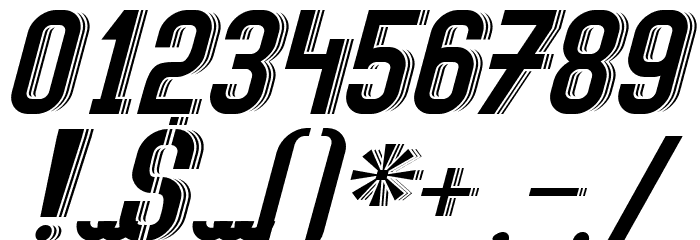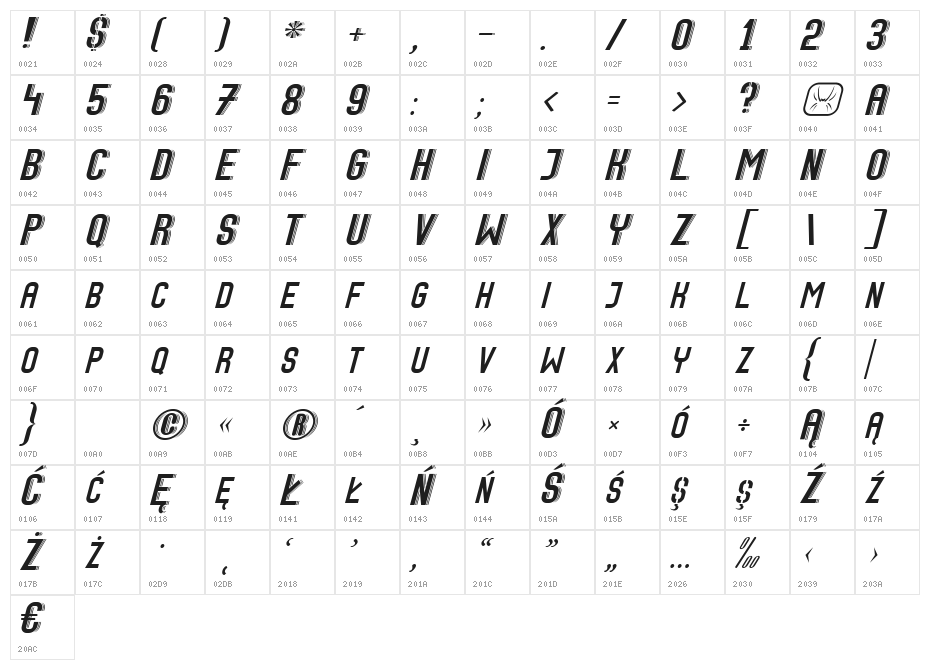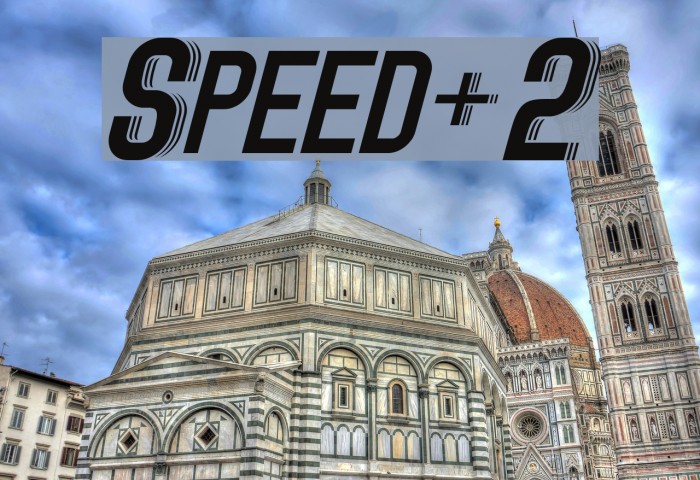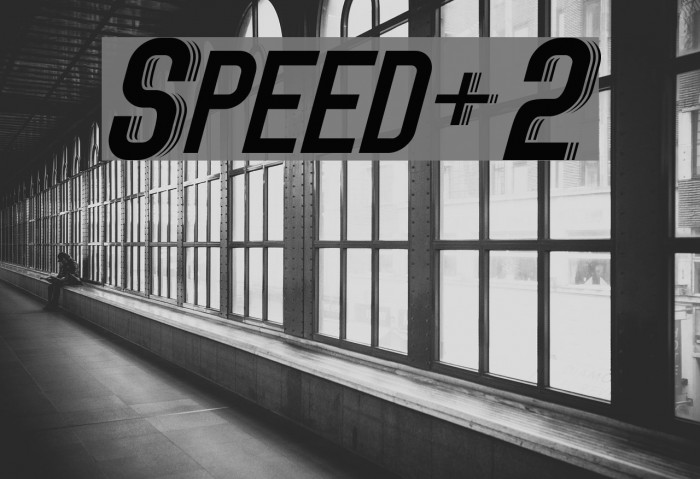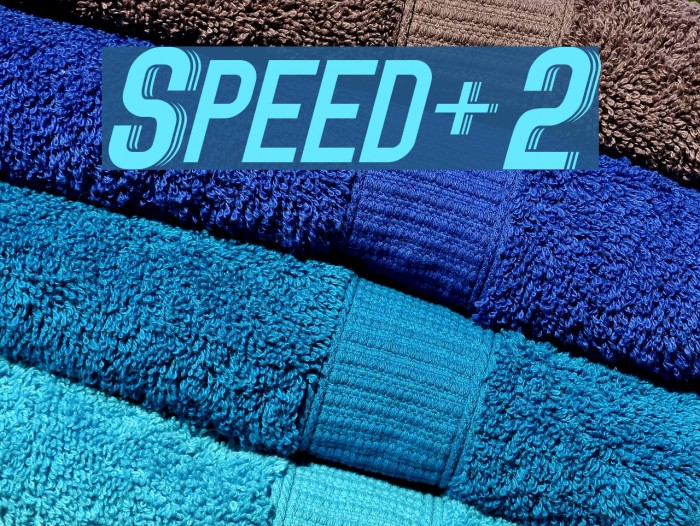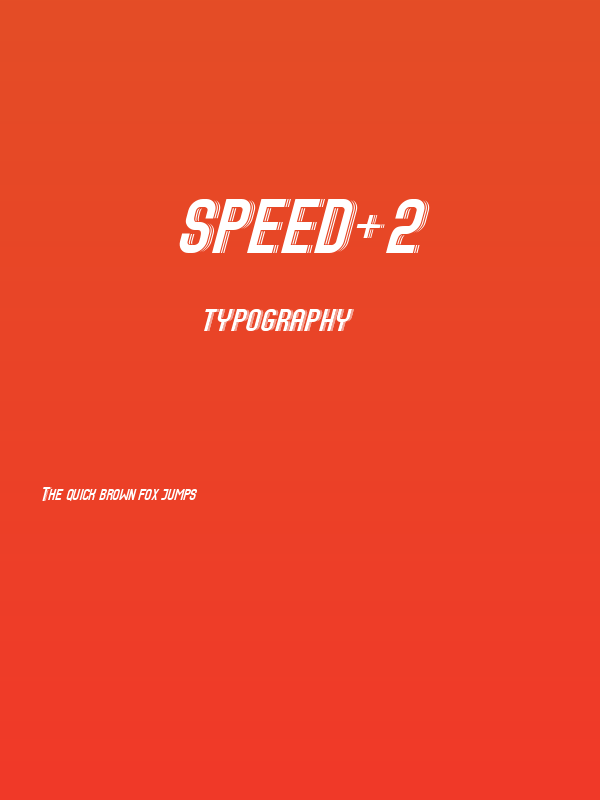
Speed+2 Font
Speed+2 Description
This dynamic and bold font features a distinctive slanted style that conveys a sense of speed and movement. The uppercase and lowercase letters are designed with a strong geometric structure, incorporating sharp angles and clean lines. The numbers and special characters maintain this energetic aesthetic, making the font ideal for attention-grabbing designs. The font's unique style is enhanced by its high contrast in stroke thickness, adding to its visual impact. It is perfect for projects that require a modern and edgy look.
| Proposed Projects | Ideal for sports branding, automotive advertisements, dynamic posters, and modern digital interfaces. |